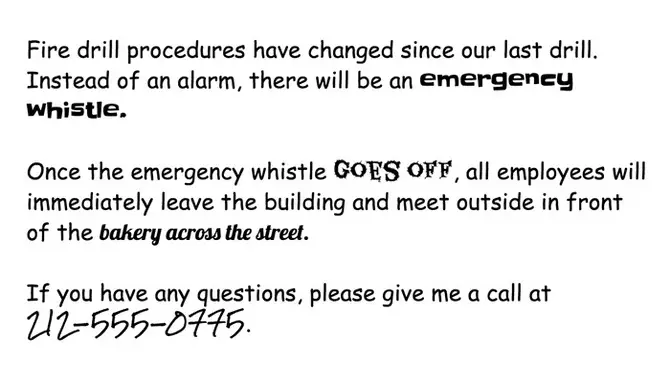
Choosing the right font for your document might sound like a no-brainer, but it is a crucial choice that can affect how your audience perceives your content.
The typeface can impact the text’s readability, mood, and tone, which means that selecting the right font can significantly affect how effectively you can communicate your message.
Here we have covered the essential factors to consider when selecting the perfect font for your document. Whether for a professional report or a personal project, these tips will help you make an informed decision and ensure that your message comes across effortlessly. So, without further ado, let us dive right in.
Best Document Font
The perfect font for a document significantly depends on the type of document and the message we want to convey. People prefer serif fonts such as Times New Roman, Garamond, and Century Schoolbook for professional documents because of their classic and elegant look. On the other hand, for technical documents, a mix of serif and sans-serif fonts, such as Georgia and Arial.
Fonts like Helvetica are a good choice in legal documents because they appear sleek and modern while still providing the necessary legibility.
When choosing a font for a professional document, it is essential to note that the font size should be 12 points for printed documents and no more than 14 points for digital ones. Lastly, it is important to experiment with fonts, as one size or type may not fit all documents or purposes.
Font For Legal Documents
When it comes to legal documents, it’s important to choose a professional and legible font. Some of the best options for legal documents include Century Schoolbook, Georgia, and Century Gothic. While Times New Roman is the most common font used for legal documents, it’s worth considering alternatives that can add a unique touch to your document.
In addition to choosing the right font, it’s important to consider font size and line spacing. You should use at least a 12-point font and consider line spacing to make legal documents easier to read.
Choosing a font representing your firm’s branding is also important, as it can help reinforce your brand identity. Finally, lawyers should choose fonts that easily read on any screen, as many legal documents are now accessed electronically. These tips allow you to choose the perfect font for your legal documents.
Best Font For Legal Documents
When it comes to legal documents, it’s important to choose a font that is both professional and easy to read. Century Schoolbook and Arial are two popular choices for legal documents, as they are highly legible and project a sense of professionalism. People generally recommend using a font size of 12 points for legal documents to ensure that the text is legible without being too small.
While no particular font fits all legal documents, serif fonts like Georgia and Baskerville can also be good options. Ultimately, the font that you choose should reflect the tone and style of the document itself while also being easily readable and professional. Following these guidelines, you can choose the perfect font for any legal document.
Best Font For Contracts
When choosing the perfect document font, it’s important to consider the specific needs of your document. For contracts, choosing a font that is easy to read and looks professional is important. San Serif fonts are the best contract choice, providing a clean and modern look.
For other legal documents, legibility is key. Fonts like Century Schoolbook, Georgia, and Helvetica are recommended as they provide a traditional and professional look while still being easy to read. Other recommended serif fonts include Baskerville and Bookman Old Style, while sans serif options include Atlas and Concourse.
Alternative options to Times New Roman for serif fonts include Tiempos and Verdigris, while Neue Haas Grotesk and Calibri are great alternatives for sans serif fonts. Additionally, typography expert Matthew Butterick provides his suggestions for legal fonts. By considering the specific needs of your document, you can choose the best font to ensure clear communication and a professional appearance.
Contract Font Size Legal
When choosing the perfect font for your documents, there are a few important considerations to remember. For legal documents, it is recommended to use a minimum font size of 12, with increasing font size to 14 to improve readability. For contracts, a font size of 12-14 is recommended, with 14 being easily read and not overwhelming for visually impaired readers.
The best contract font should be easy to read and professional, and a San Serif font is recommended. Legal document fonts are already vetted for professionalism and you can also borrow from them.
Best practices for word documents recommend a font size of 14, but alternative sizes should be available upon request. For legal documents, font size rules may vary depending on the court, but increasing to size 14 can improve readability, especially on screens. Choosing the right font can greatly enhance the professionalism and readability of your documents.
5.What Do You Want To Communicate With Your Business Font?
Ans: Your business font choice can communicate a lot about your company and brand identity. When selecting a font, consider the type of document you are creating. A professional font can make a good first impression and reflect your company’s values.
For personal letters, feel free to use a favorite font, but when presenting to clients or creating business documents, a unique font choice may be appropriate.